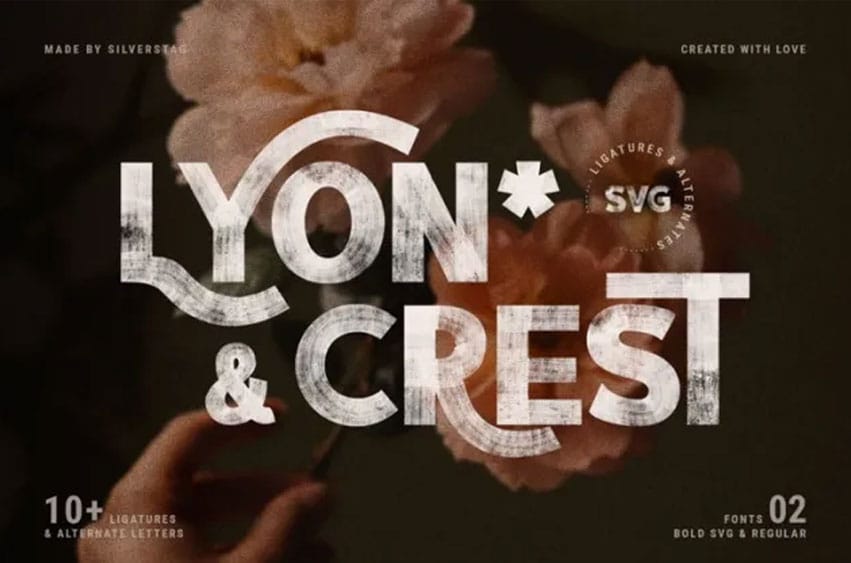
Lyon & Crest Font Hey everyone, are you ready for a brand new look and unique perspective in your typography? Look no more, LYON & CREST is my new handprinted SVG font that will make each of your projects 100% unique!
I am supper happy to present you my brand new, handprinted SVG font. It is something I have been working on for quite some time now and I am sure you’ll enjoy it’s unique and playful look! The true handprinted look will elevate your work and help you create some new and unique designs.